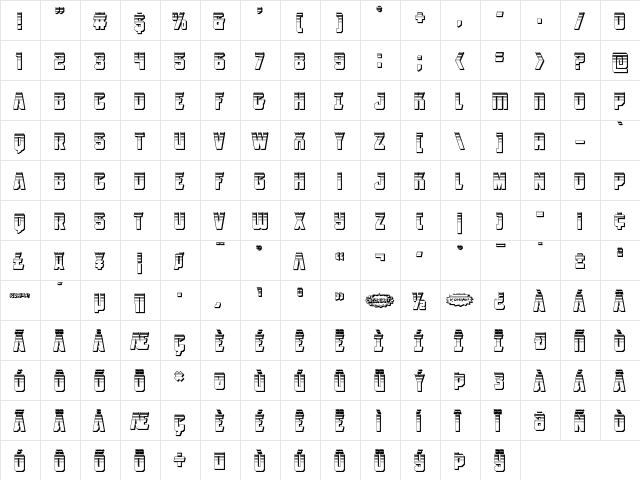
Antilles Platinum Regular
Design Context for Antilles Platinum Typeface
Antilles Platinum is a composed and adaptable typeface that performs quietly and consistently across a wide range of design contexts.